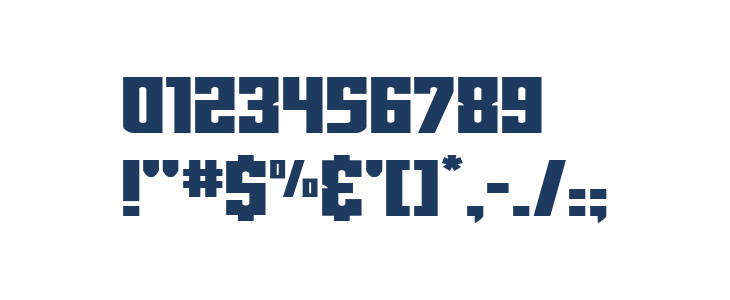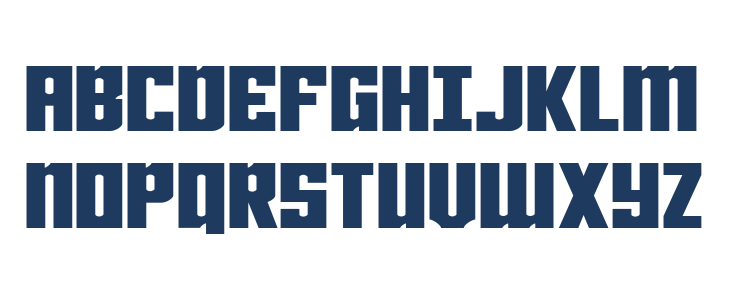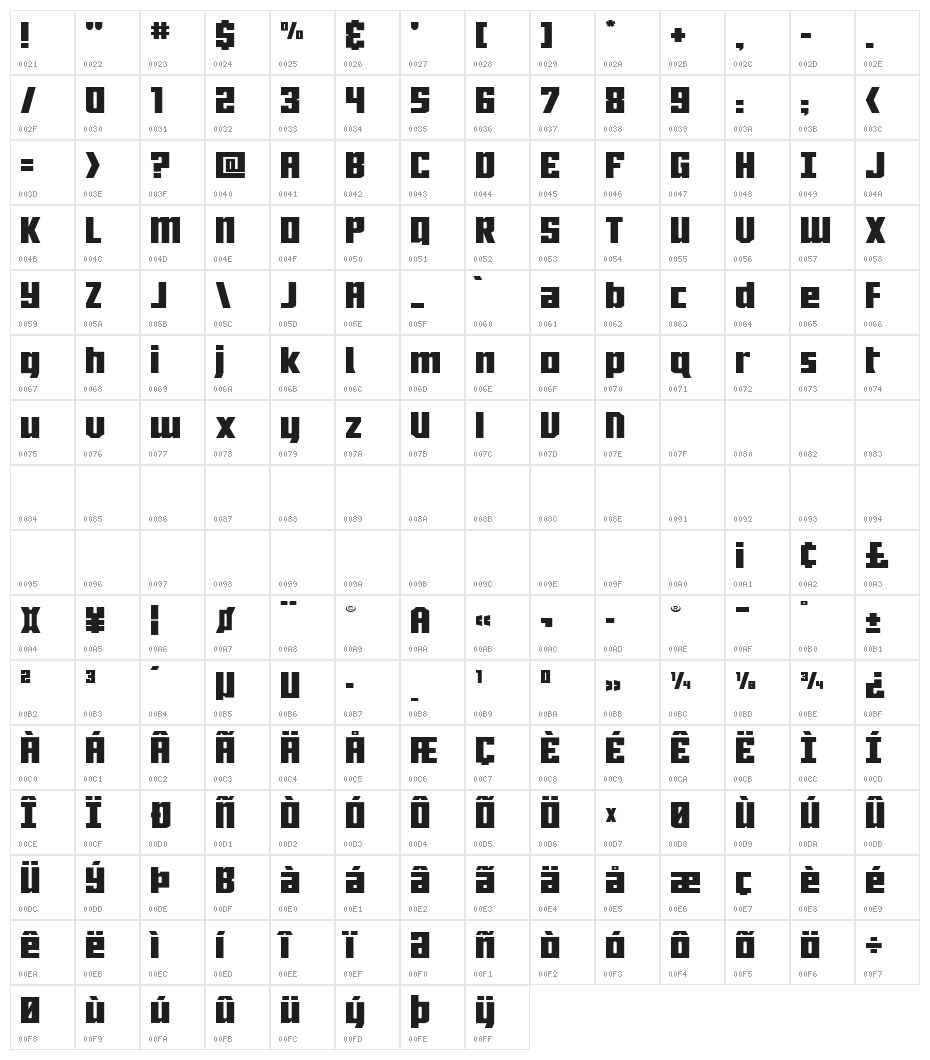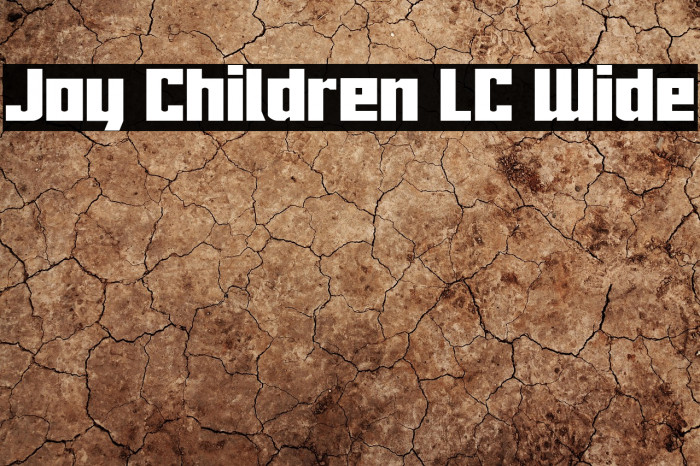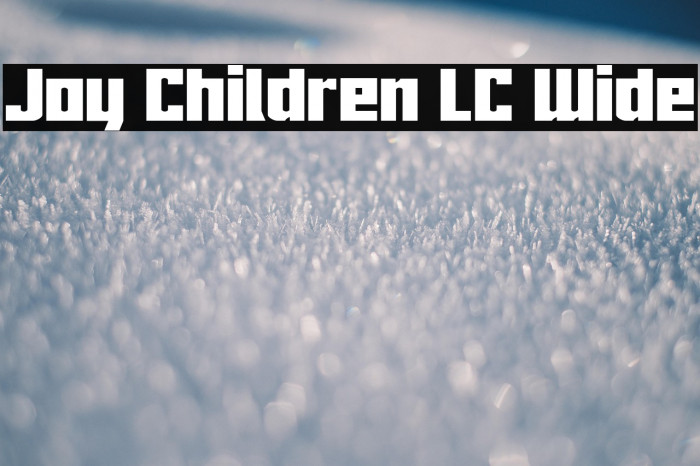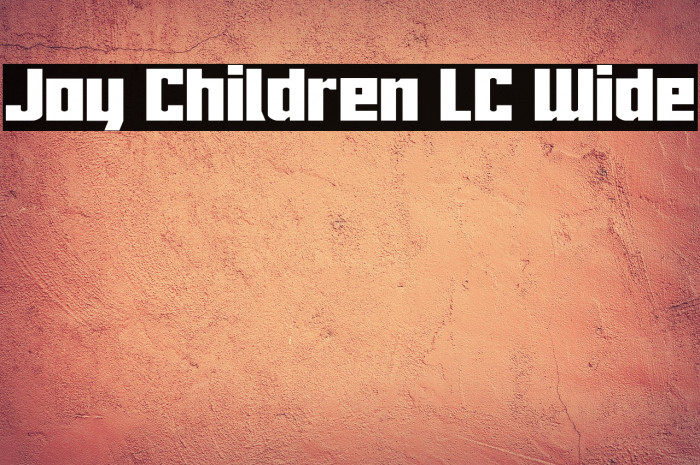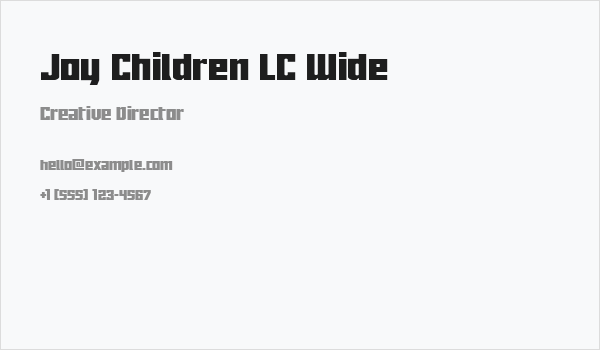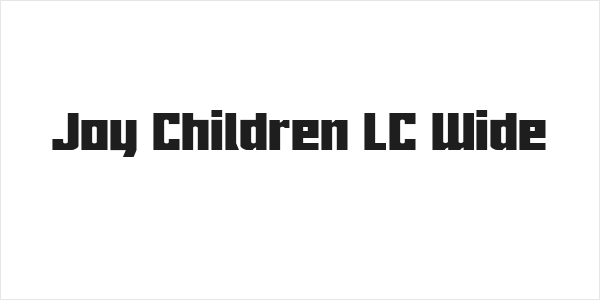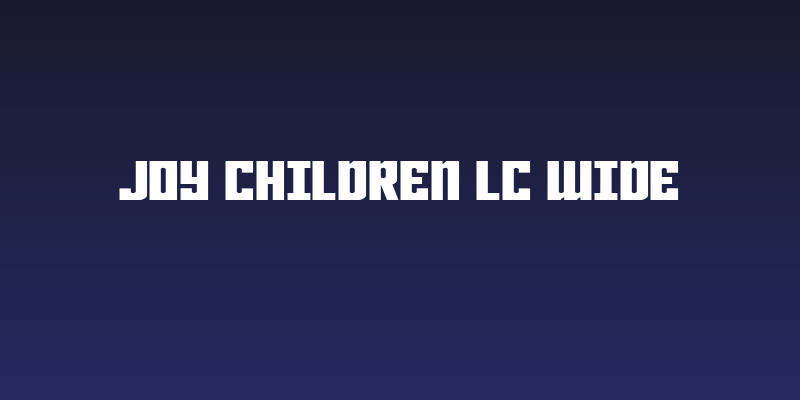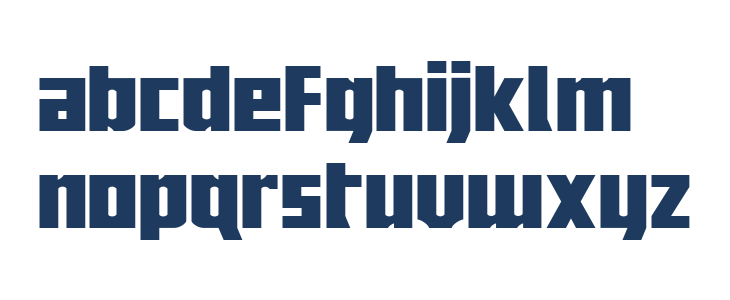
Joy Children LC Wide Font
Joy Children LC Wide Description
Bold, blocky, geometric sans-serif font with a strong, industrial appearance. The uppercase letters are characterized by thick, uniform strokes with squared edges, while the lowercase letters maintain a similar geometric style with consistent stroke weight. Numerals and symbols are also bold and angular, matching the overall aesthetic.
| Overall Style | Modern, Industrial, Geometric |
| Use Case | Headlines, Logos, Posters, Branding |